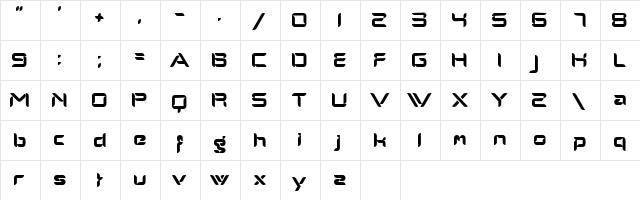
AlphaMaleModern Regular
Design Context for AlphaMaleModern Typeface
AlphaMaleModern offers clean, dependable letterforms without strong stylistic allegiance, making it a practical choice for designers who need flexibility.